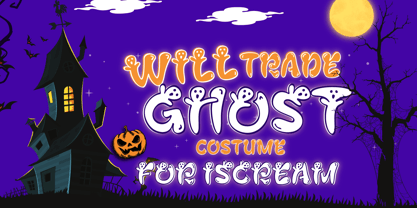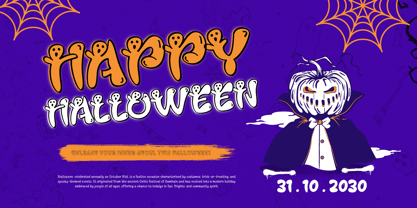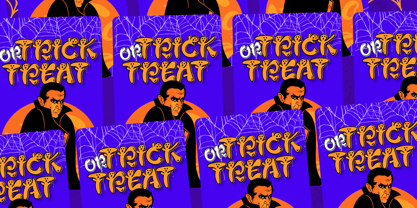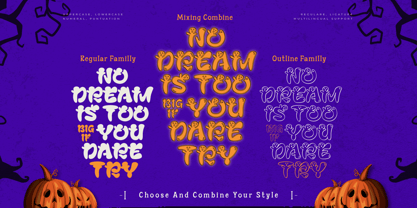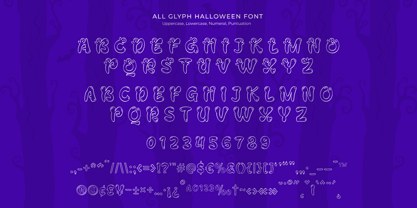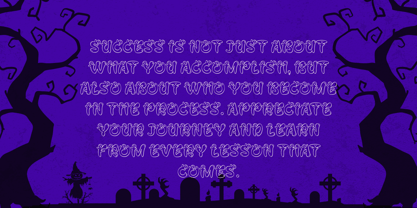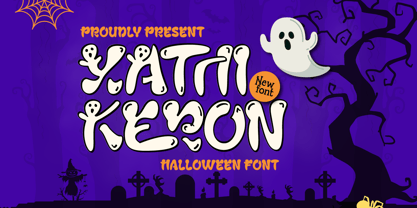
Xathi Keron
by Trabas Kriya
The Xathi Keron Font Family was designed by Murozakul Akhsan and published by Trabas Kriya. Xathi Keron contains 2 styles and family package options. More about this family
Xathi Keron - Halloween Cute Font combines spooky and cute elements, making it perfect for playful Halloween-themed designs. Its charming and quirky letterforms bring a light-hearted, fun atmosphere to projects like party invitations, children's books, festive decorations, and candy packaging. Xathi Keron adds just the right amount of spooky charm without being too scary, making it ideal for kid-friendly and whimsical Halloween creations.
Brighten up your Halloween projects with the delightful and spooky-cute Xathi Keron!